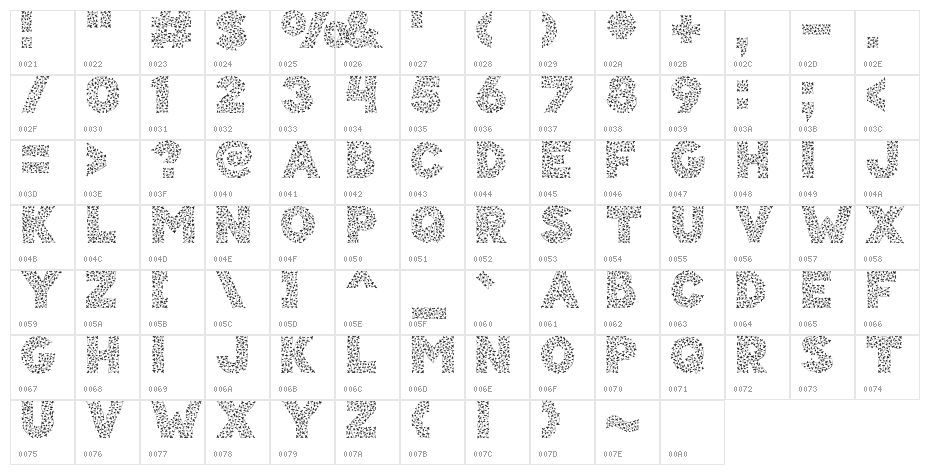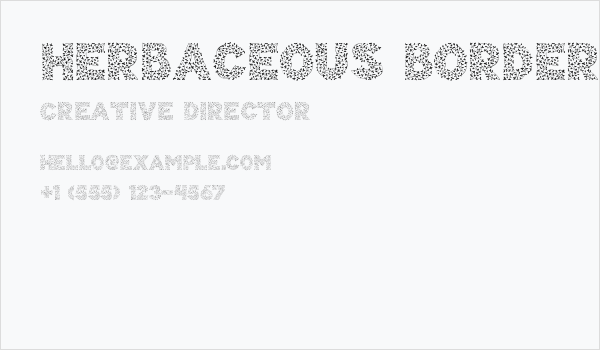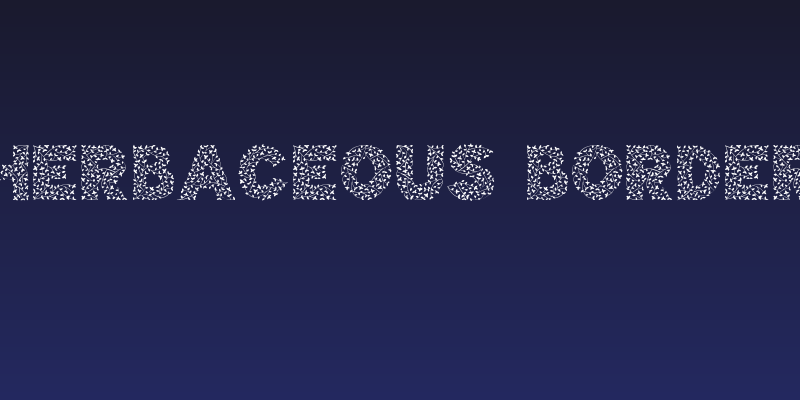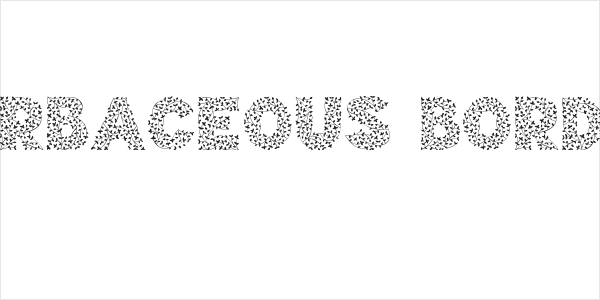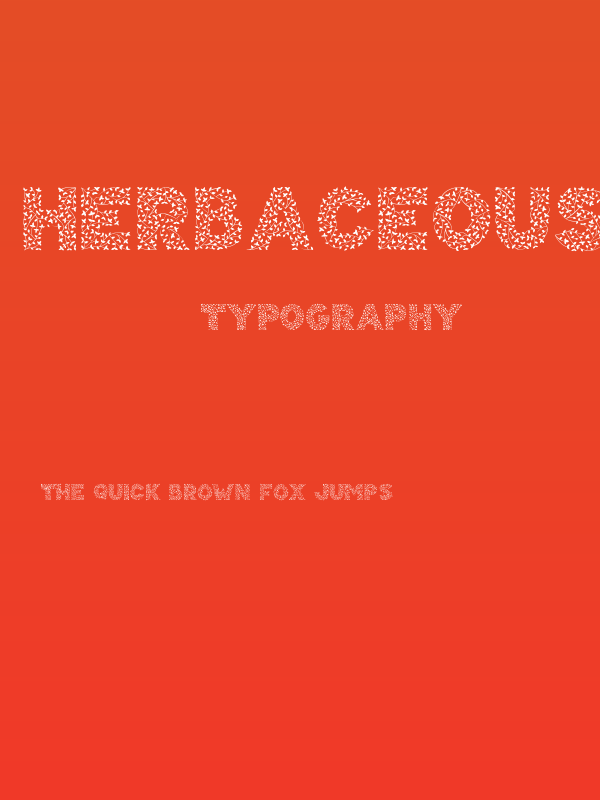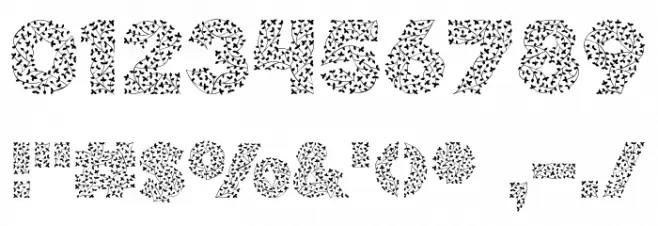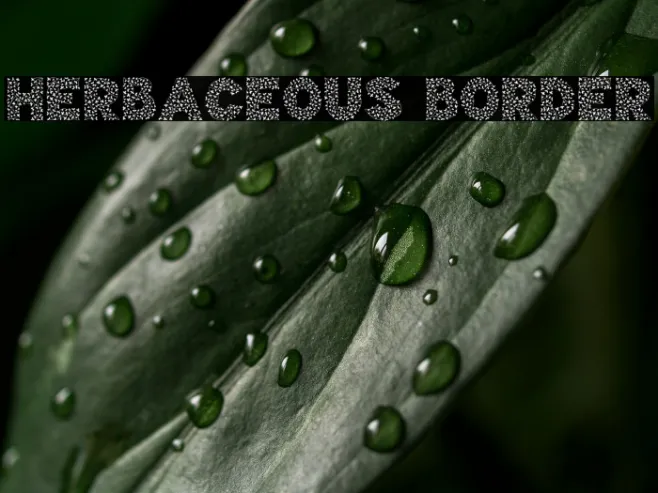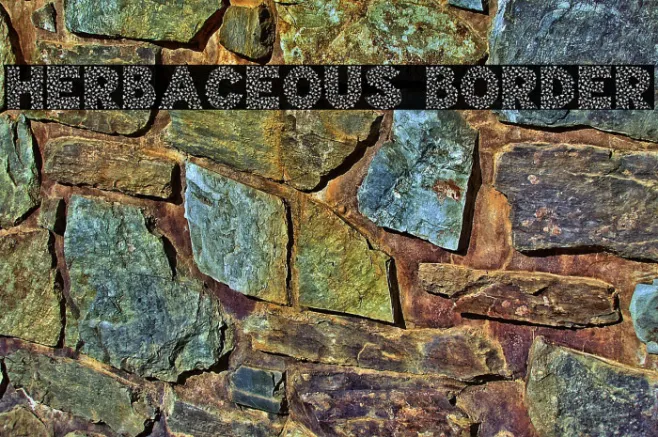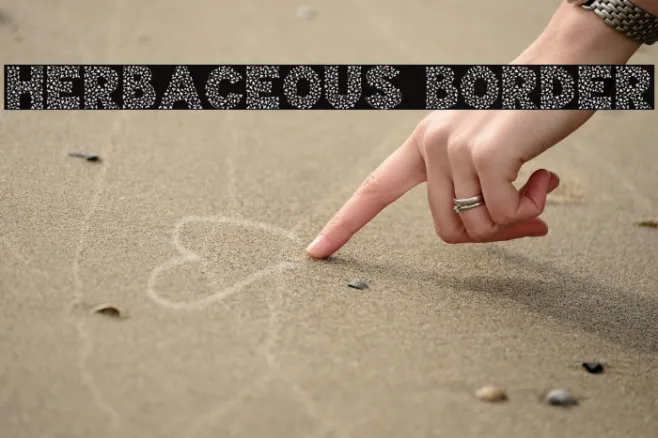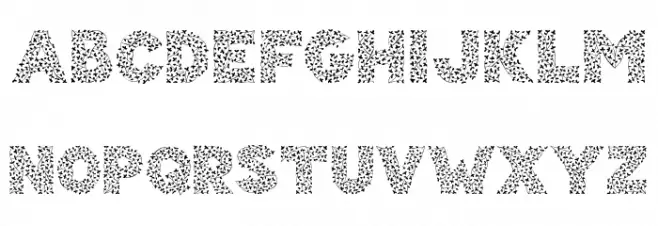
Herbaceous Border Font
Herbaceous Border Description
This font features a unique and decorative style, characterized by a pattern of small, leaf-like shapes that fill each character. The letters are bold and eye-catching, making them ideal for attention-grabbing designs. The overall appearance is playful and organic, reminiscent of a lush garden or a dense forest. The intricate detailing within each letter gives it a textured look, adding depth and interest to the text. This font is perfect for projects that require a natural or whimsical touch, such as eco-friendly branding, garden-themed events, or creative art projects.
| Use Case | Headlines, Logos, Decorative text |
| Proposed Projects | Ideal for eco-friendly branding, garden-themed events, creative art projects, and decorative posters. |